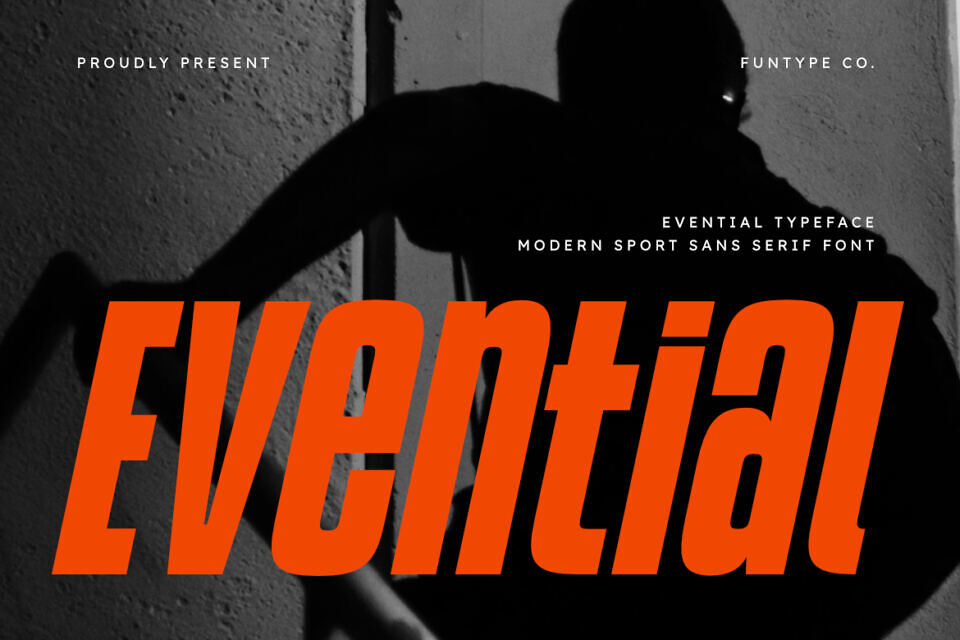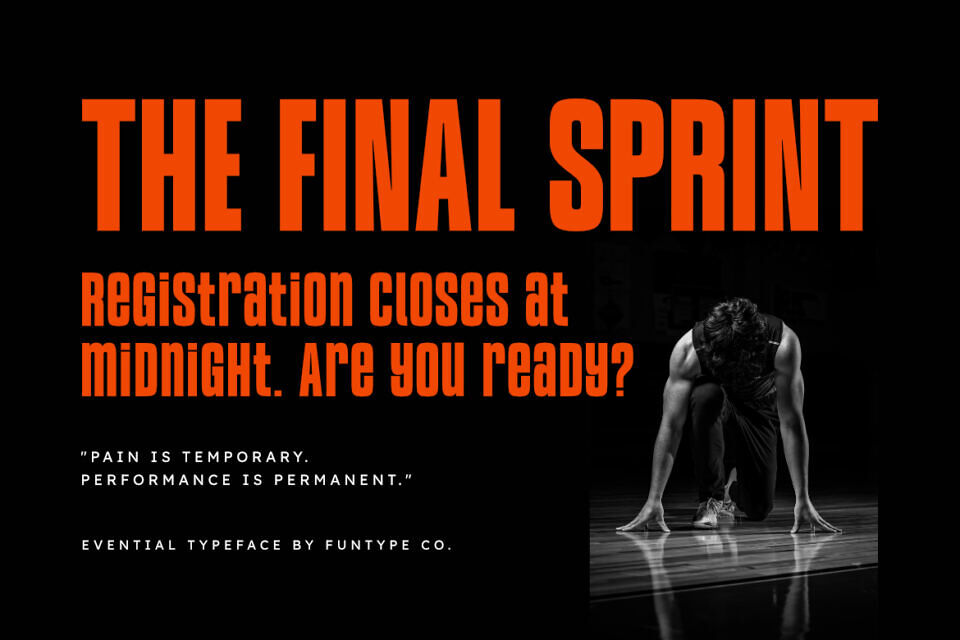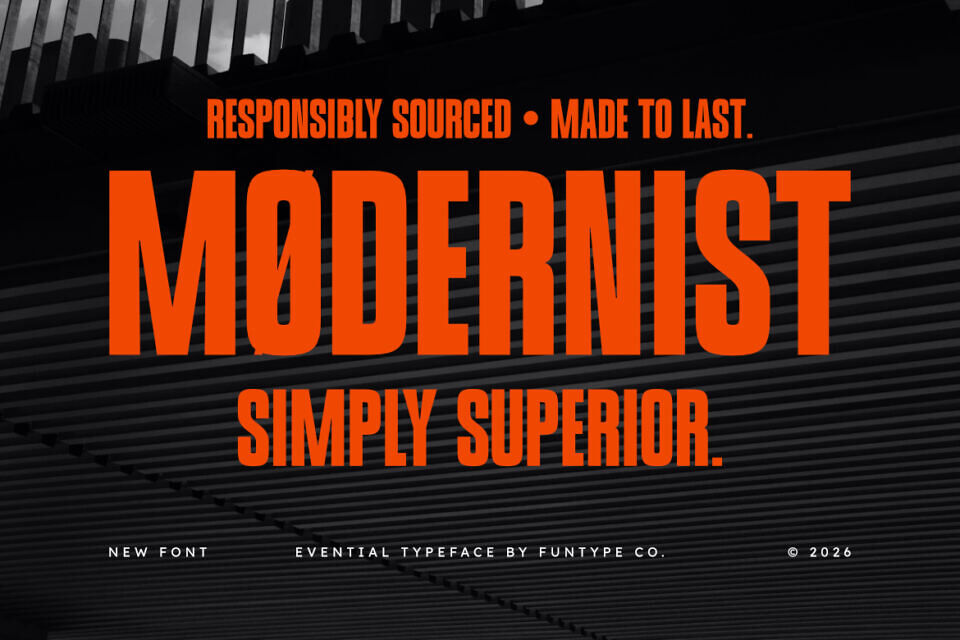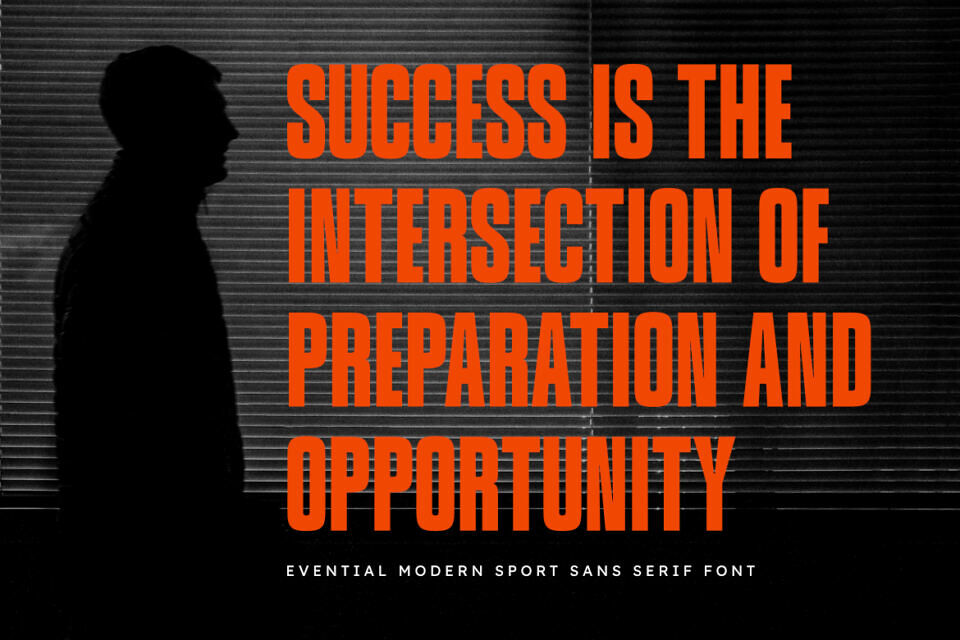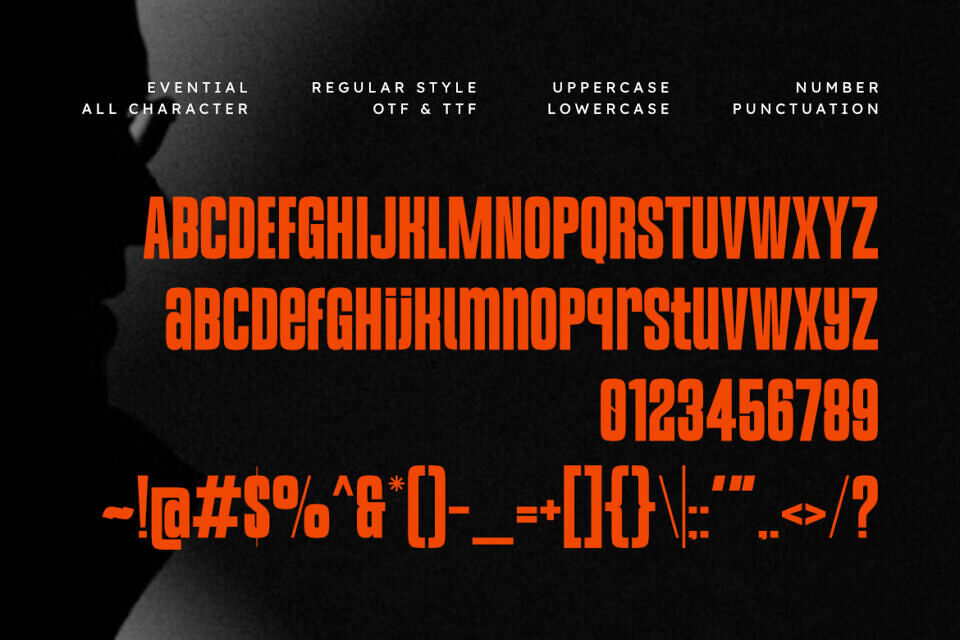
Evential Font
Evential is a sophisticated and powerful modern sport sans serif font, thoughtfully designed to capture the essence of high-energy performance and bold storytelling. With its strong, slanted structure and clean geometric lines, Evential offers a professional aesthetic that brings a touch of confident speed to any creative project.
This font is the ideal choice for designers looking to add a professional yet energetic touch to their work. Whether you are crafting dynamic sports branding, a modern automotive logo, or impactful editorial layouts, Evential provides a seamless blend of contemporary flair and timeless strength.